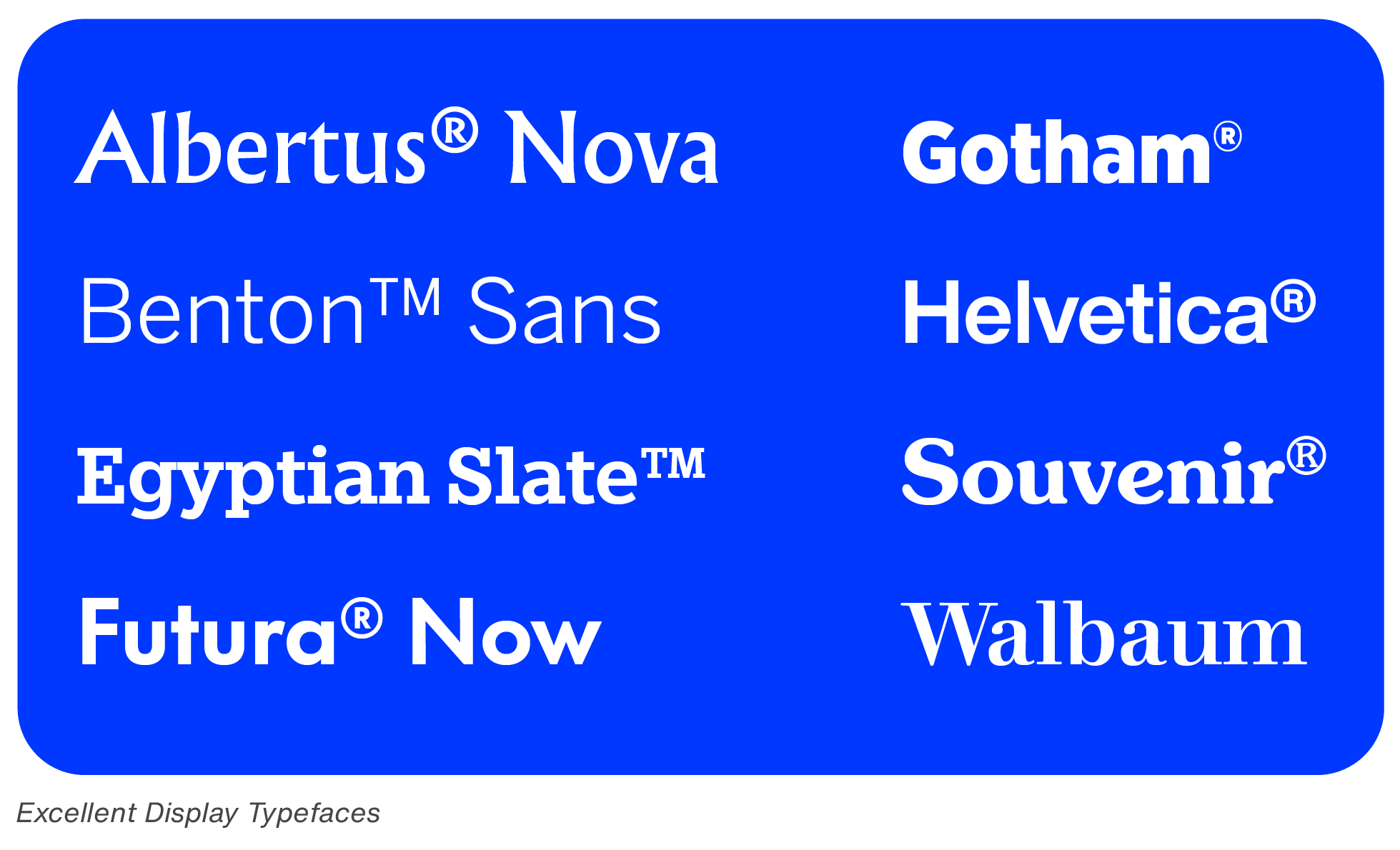
| Display typefaces serve the essential purpose of attracting attention, drawing readers into advertisements, brochures, or posters. The most effective designs... | |